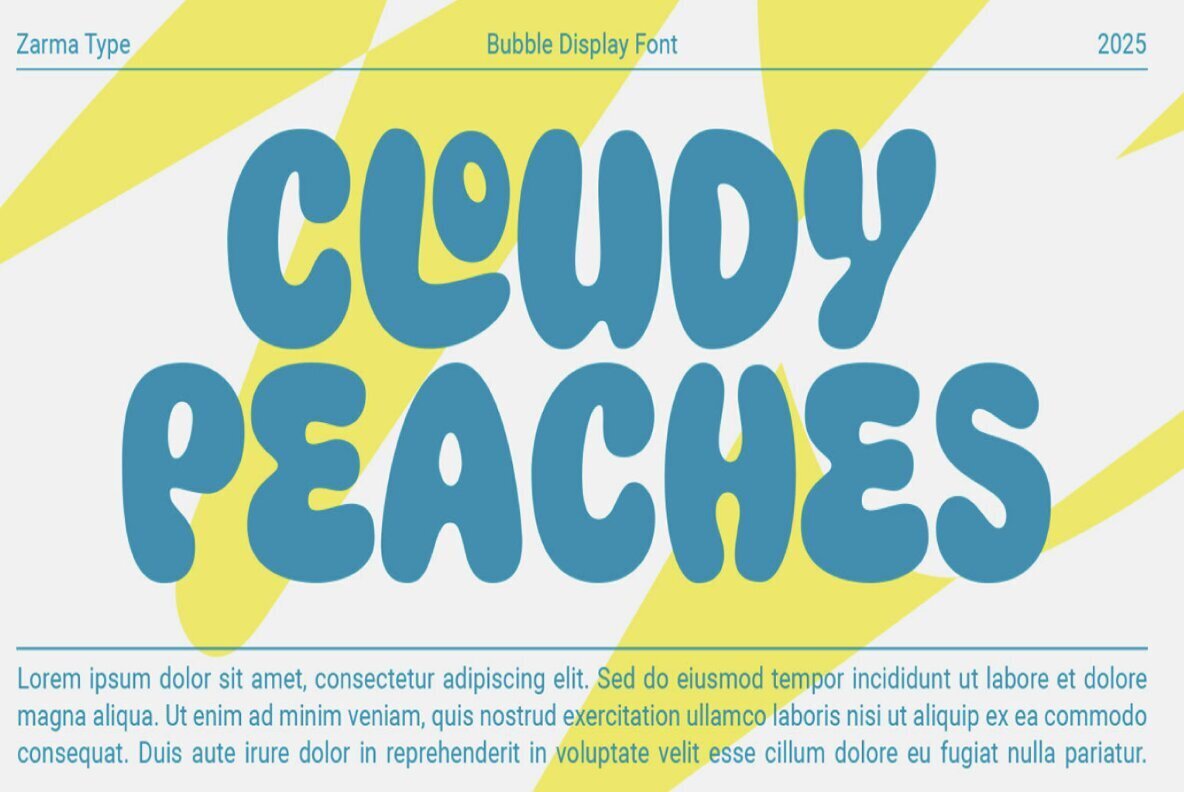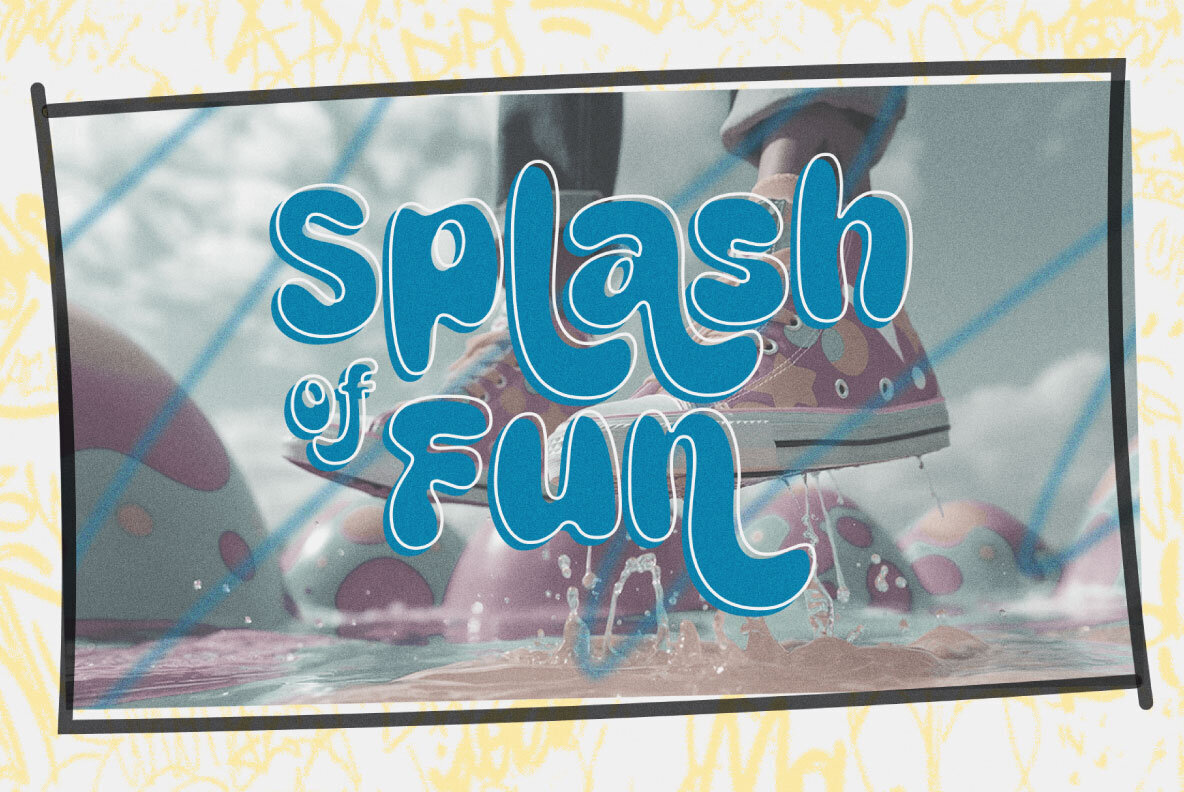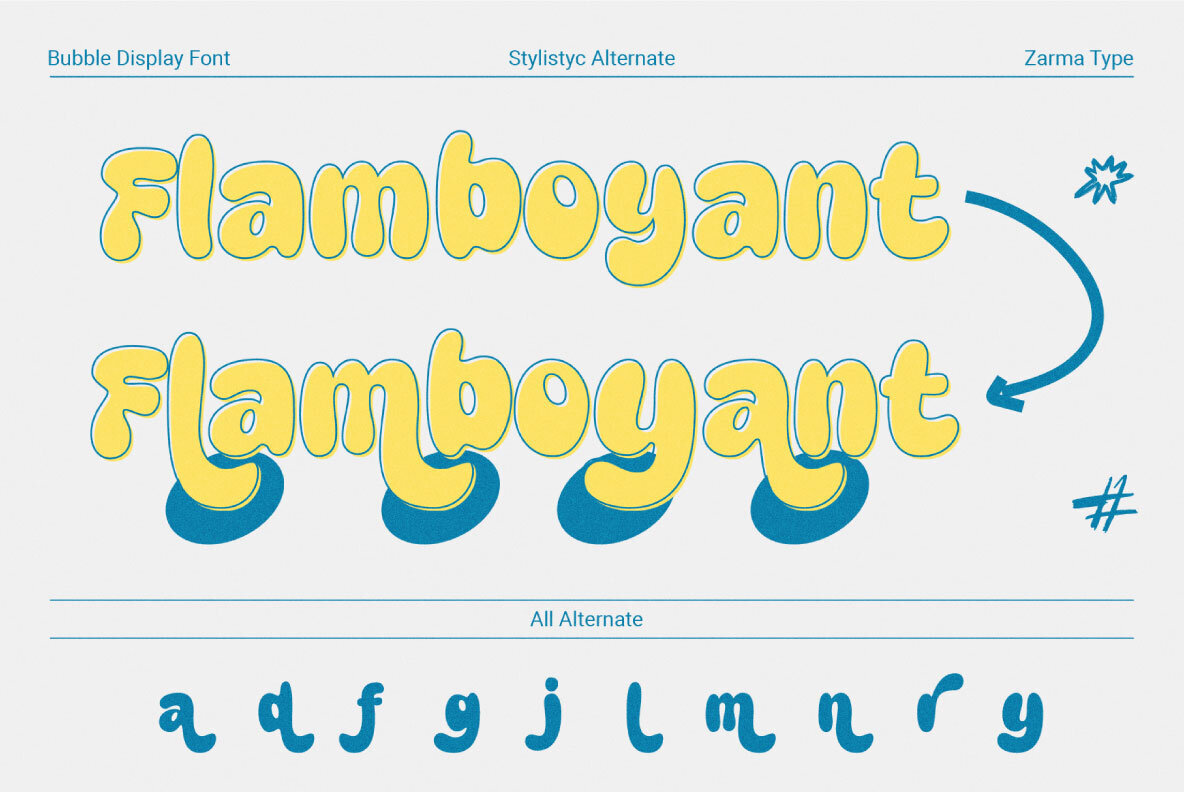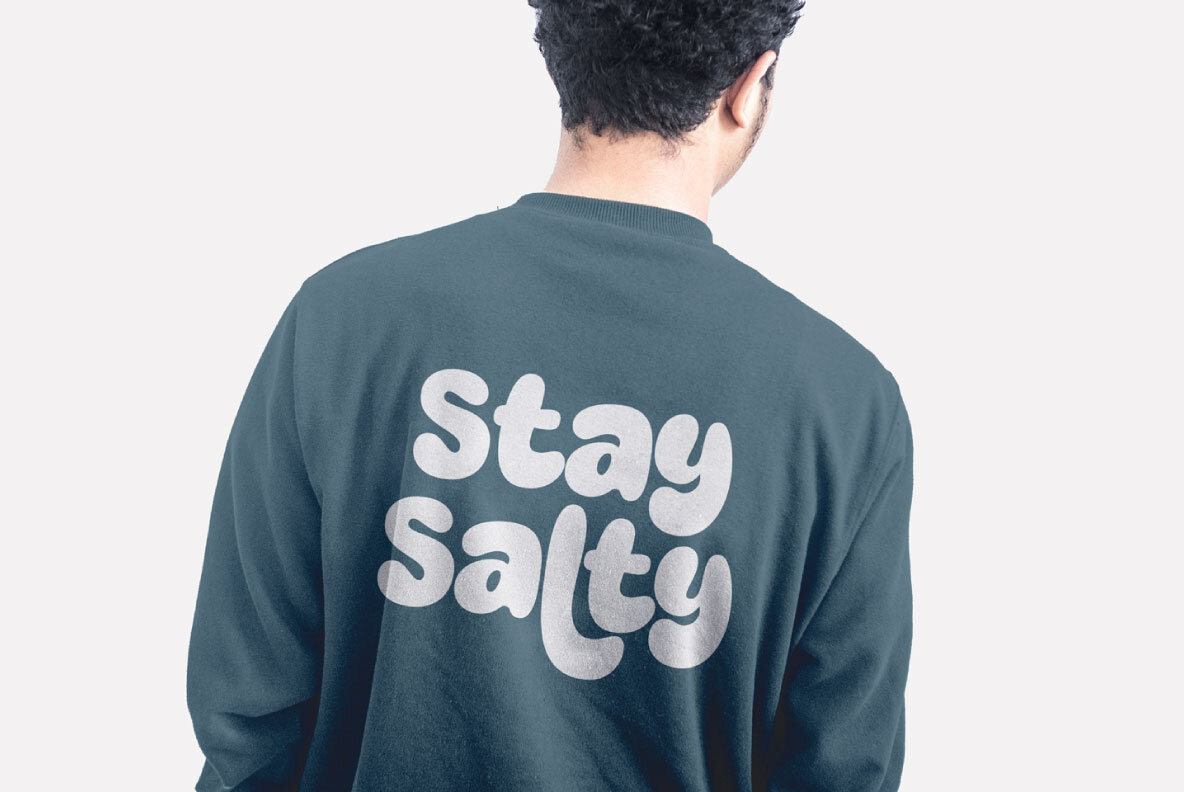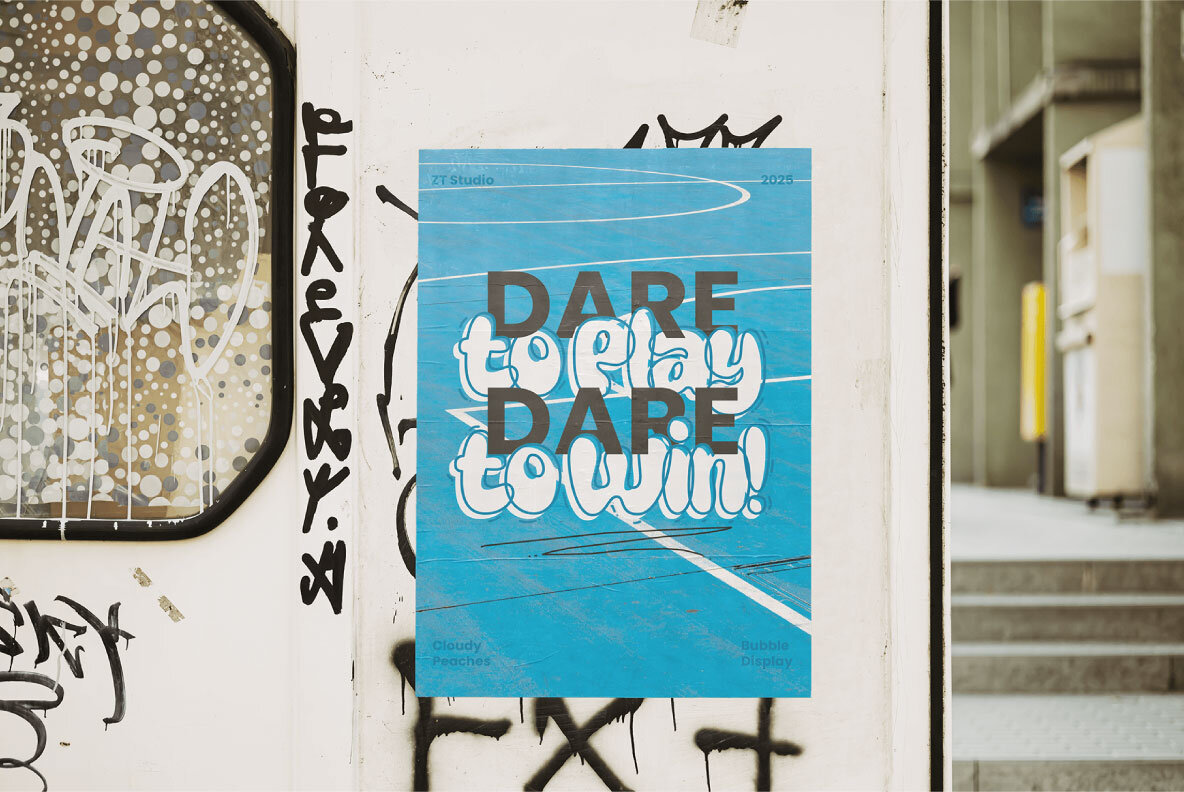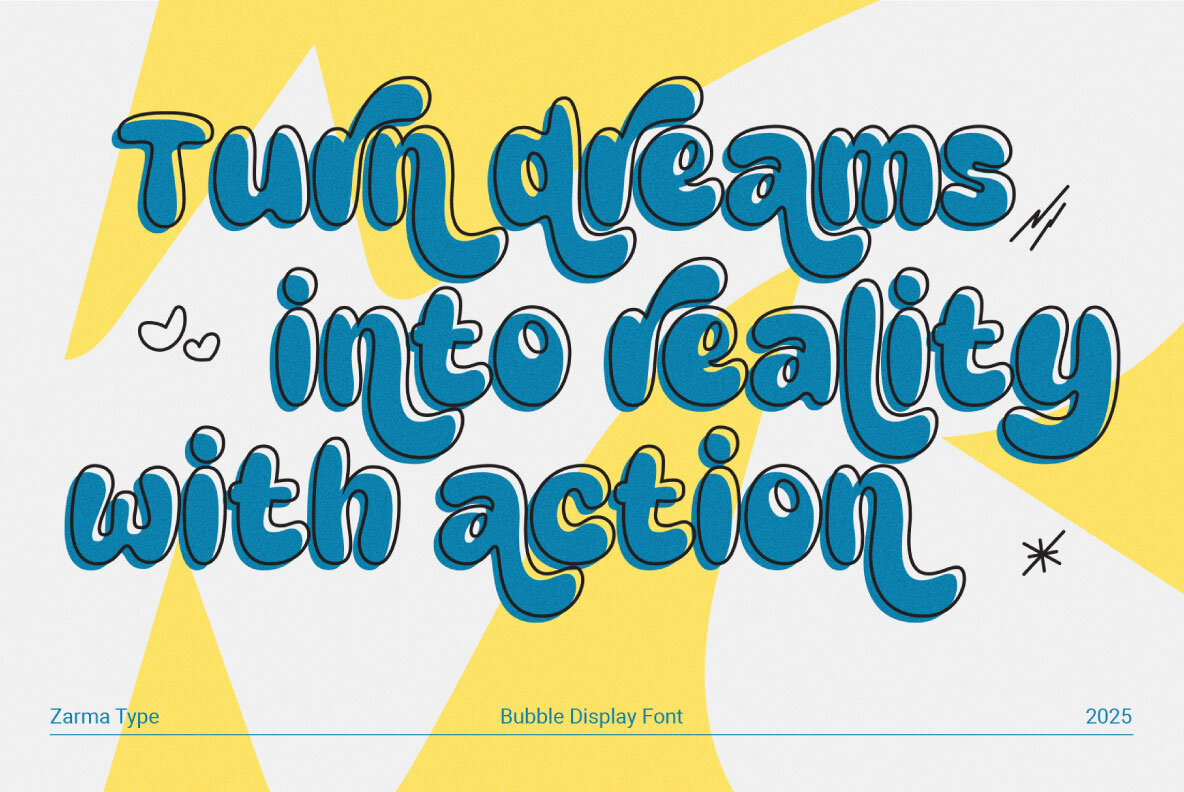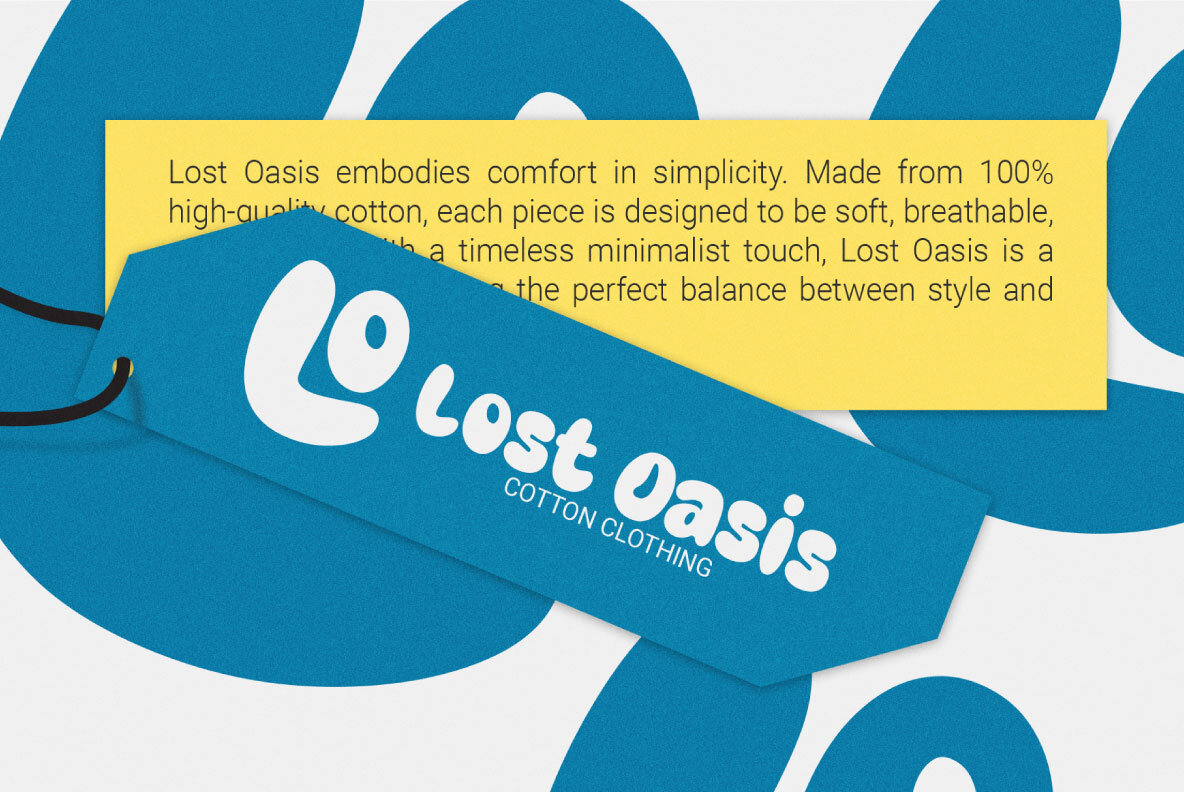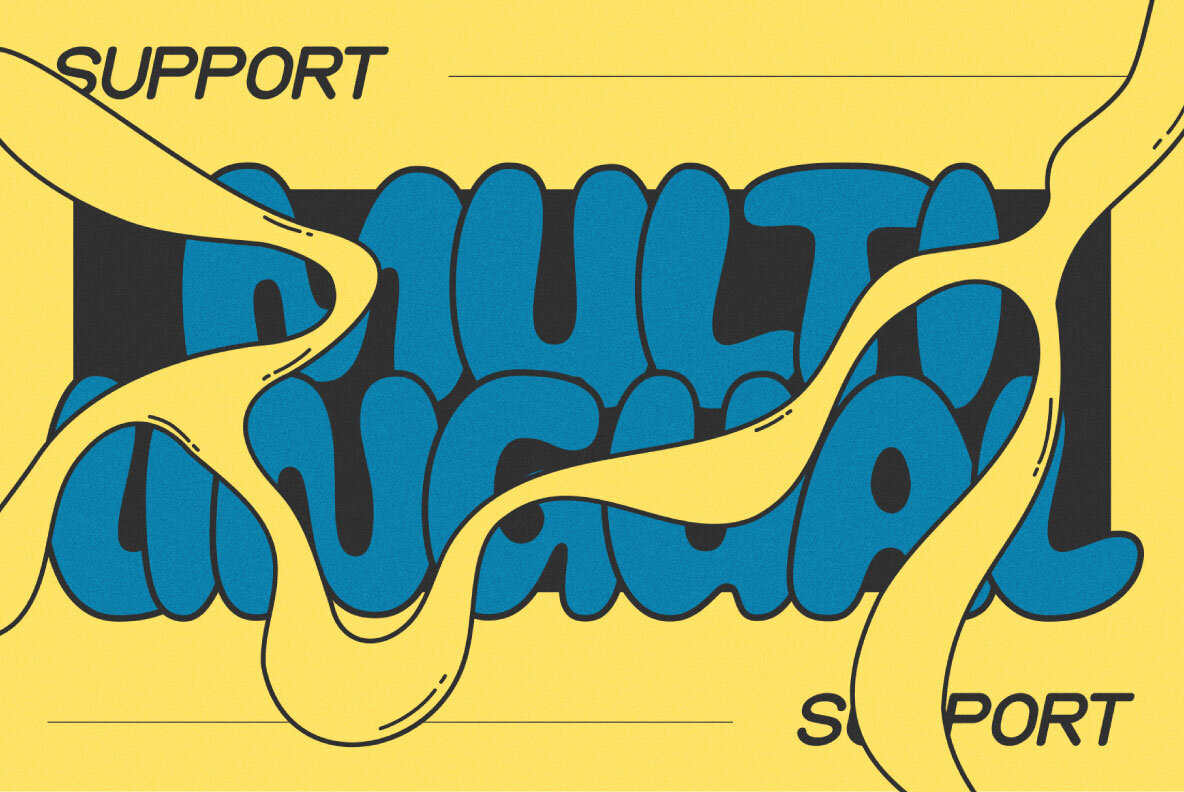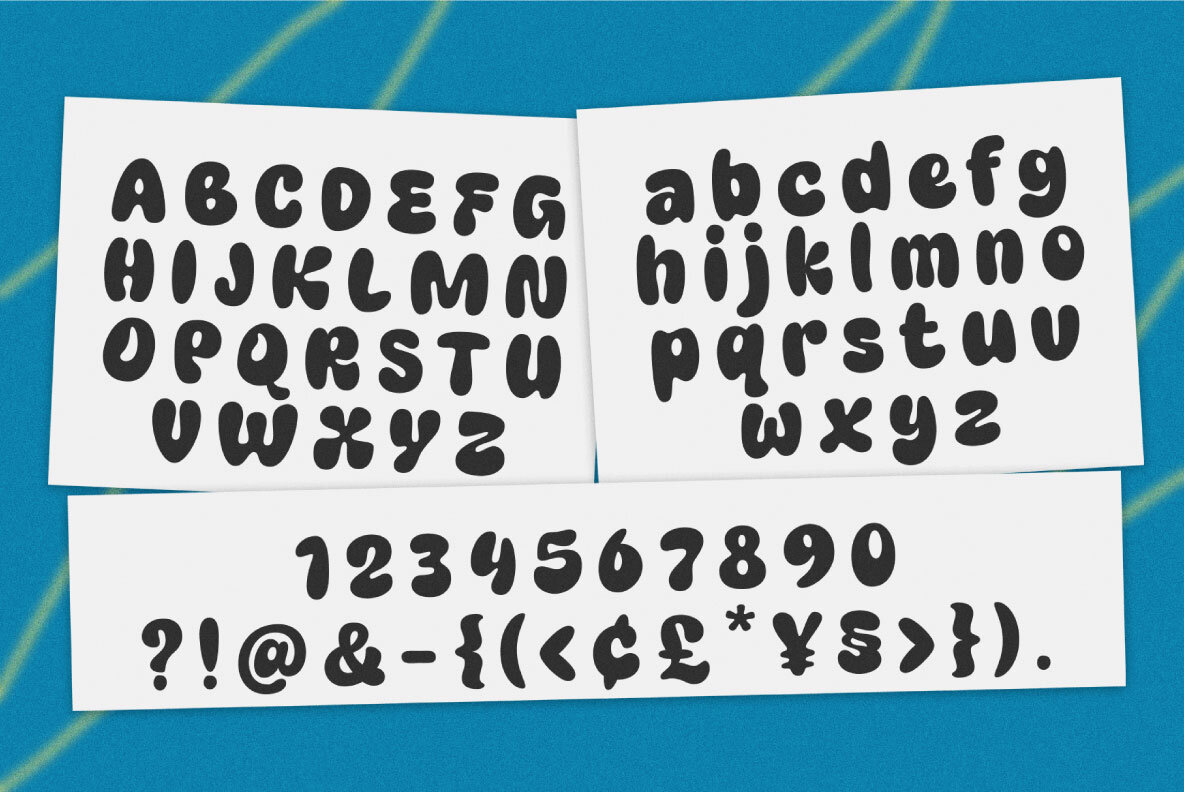
Cloudy Peaches Font
Cloudy Peaches
Cloudy Peaches is a lively bubble display font that imbues your designs with a delightful blend of nostalgia and whimsy. With its buoyant character forms, smooth edges, and seamless connections, this typeface strikes the perfect harmony between retro psychedelic flair and modern design trends. Each letter gives the impression of floating, radiating a joyful and carefree energy that enhances creativity. Perfectly suited for music festivals, children's products, creative agency projects, and youth-oriented brands, Cloudy Peaches is a font that speaks to fun and expression. Add a vibrant touch of nostalgic psychedelia to your projects with Cloudy Peaches, the versatile typeface that turns ordinary text into intriguing visual statements.Cloudy Peaches: A Whimsical Display Font